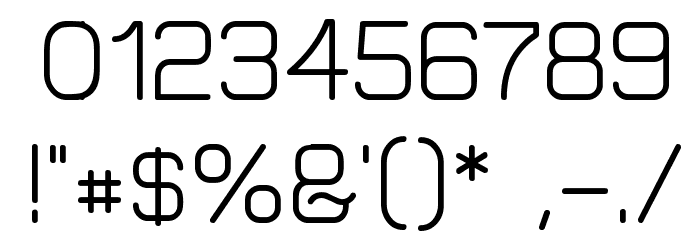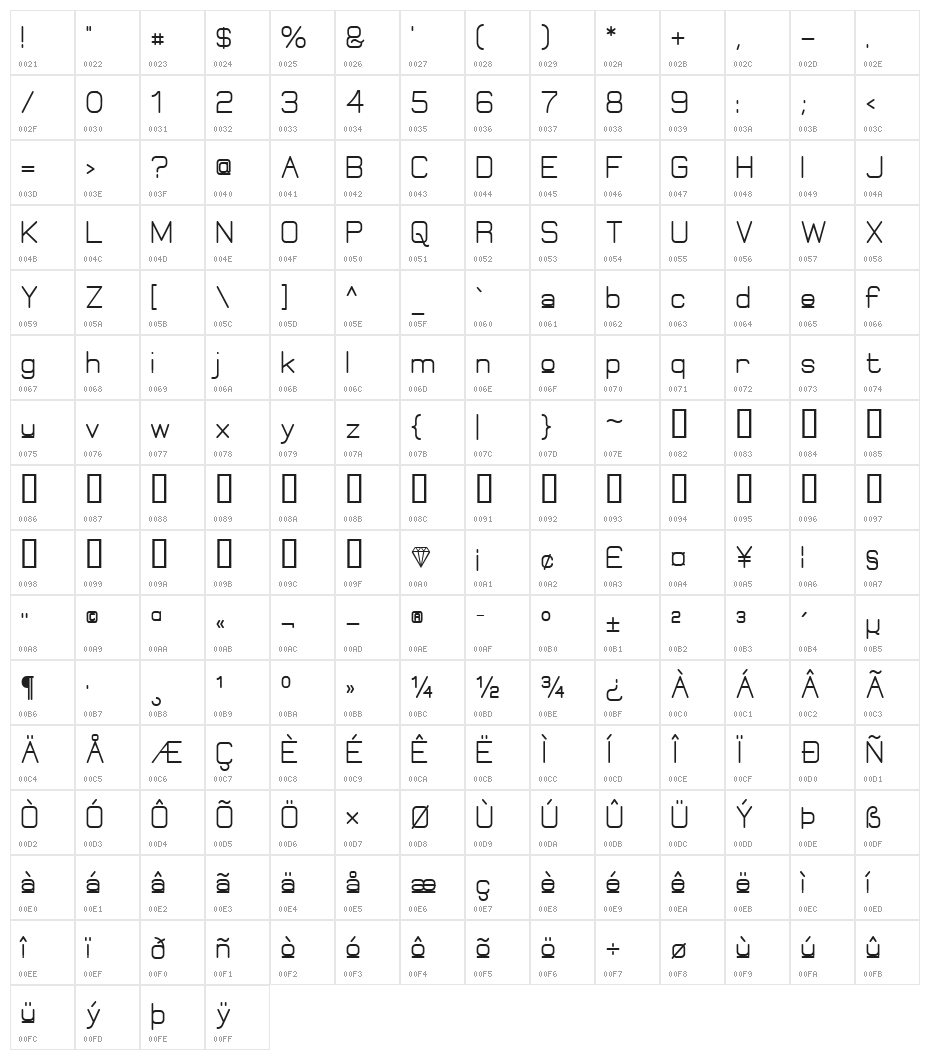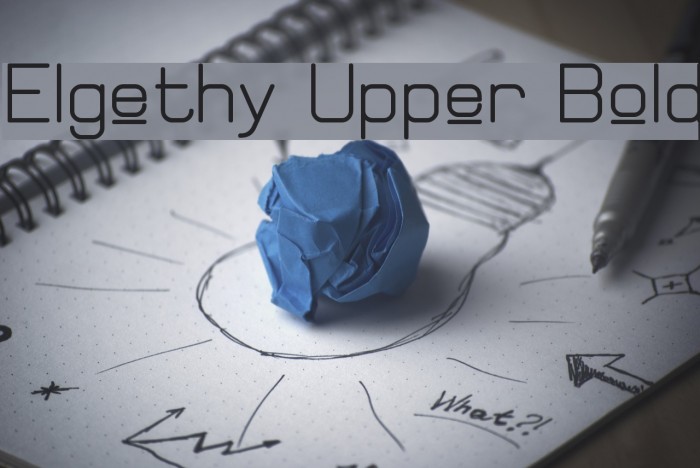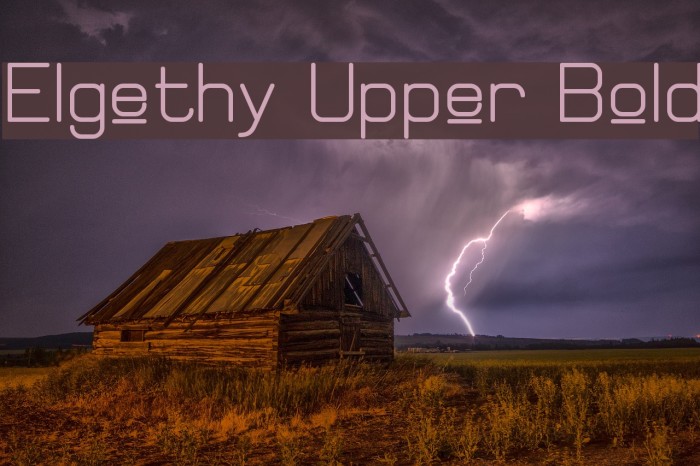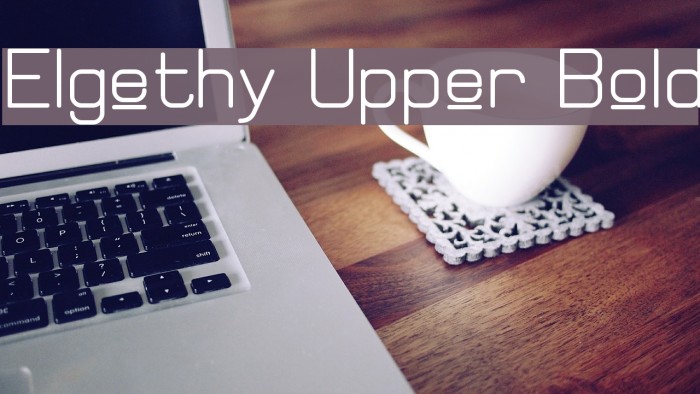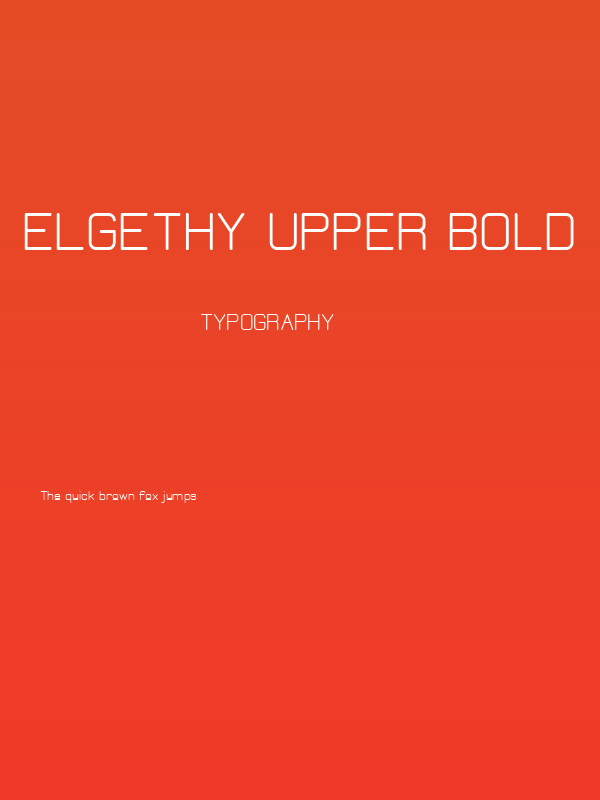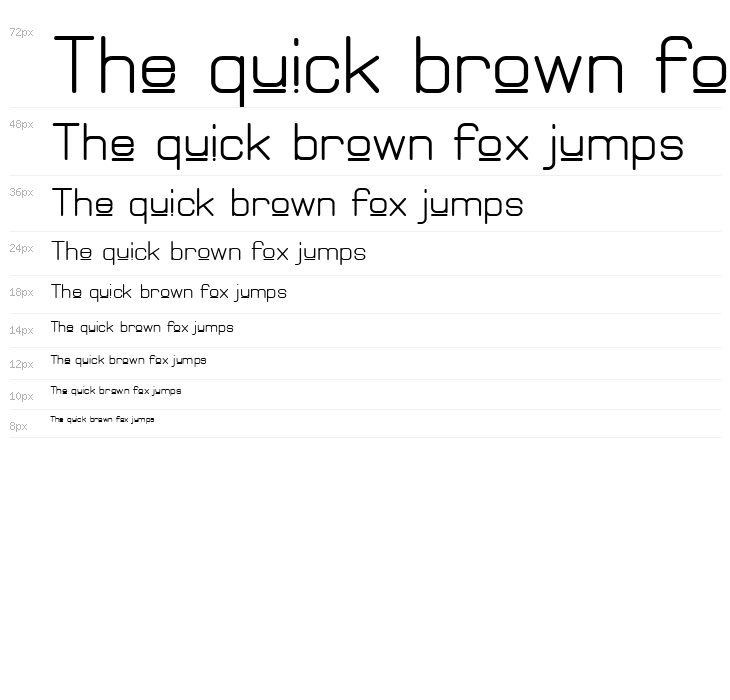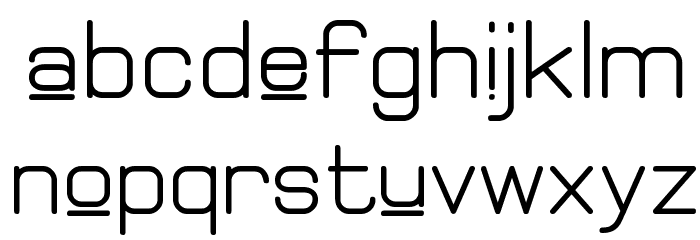
Elgethy Upper Bold Font
Elgethy Upper Bold Description
This font features a modern and sleek design with a geometric structure. The characters are composed of clean, straight lines and rounded corners, giving it a futuristic and technical appearance. The uppercase letters are bold and prominent, while the lowercase letters maintain a consistent style with slightly narrower strokes. The numerals are clear and easy to read, matching the overall aesthetic of the font. Special characters are well-integrated, maintaining the same geometric and minimalistic style. This font is ideal for projects that require a contemporary and professional look.